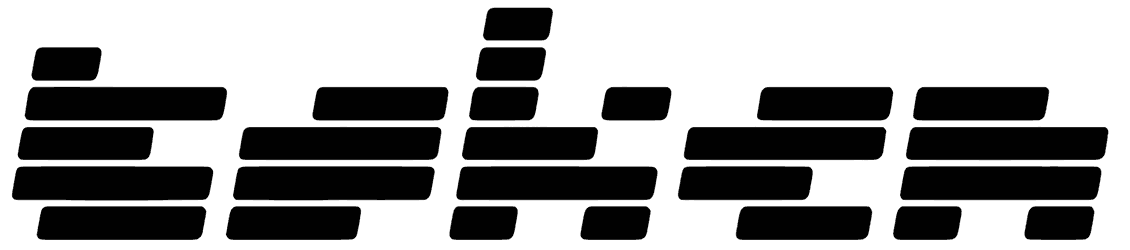
Token Font
An unprecedented techno font consisting of irregular yet chic horizontal lines was created to convey a complicated vibe to design work. Without uppercase letters, the LCD font can provide the chance to go great for high-end articles, digital projects, and creative artwork. But be aware that the Token font might be unreadable.